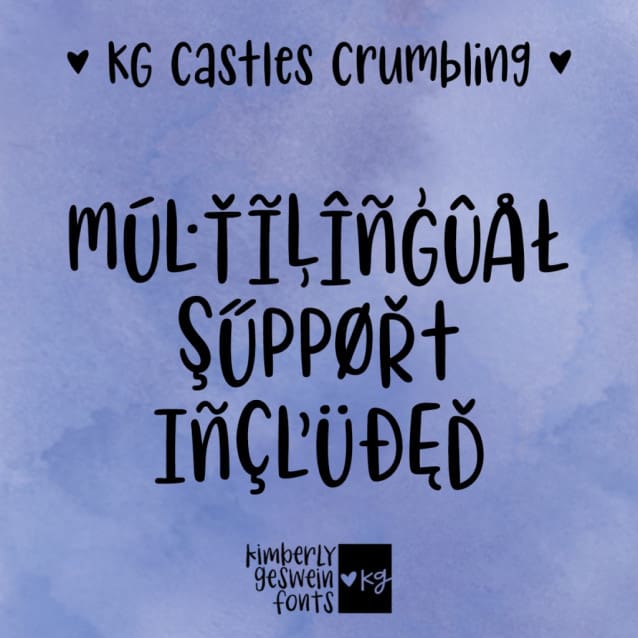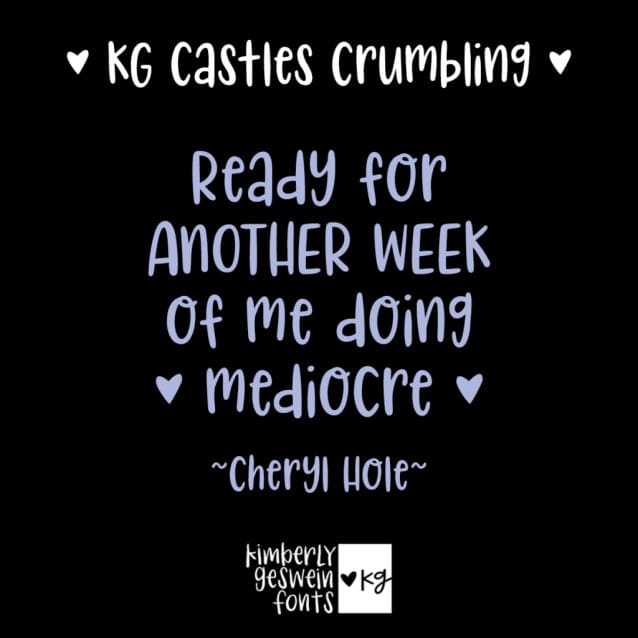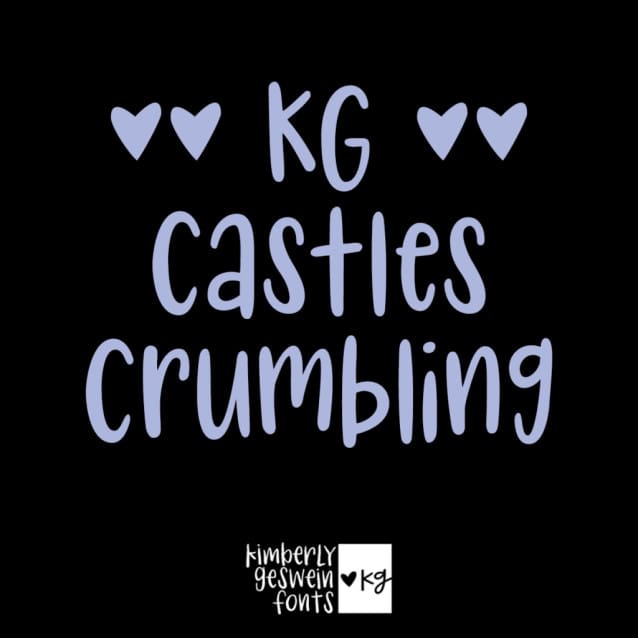
KG Castles Crumbling Font
KG Castles Crumbling Font is a happy and playful font full of personality and spark. I enjoy playing with letters to create whimsical shapes. Perfect for handcrafted goods, birthday cards, children’s products, and more, this font is created with optimism and fun in mind. Life is short and we need to have a good time.
The thick and thin unicase style feels very handmade and original. The letters are based on the inside of the letters in KG My Tears Ricochet.